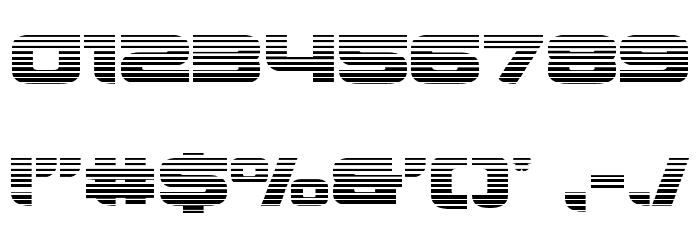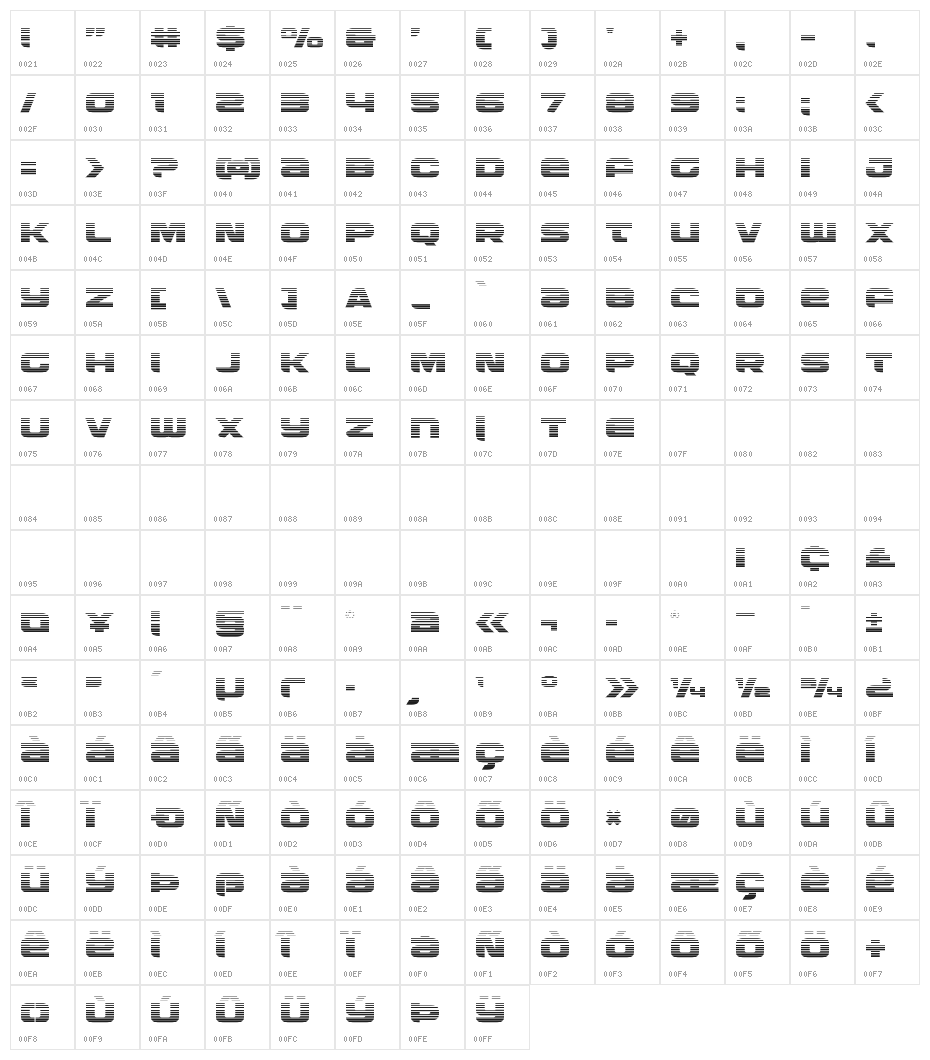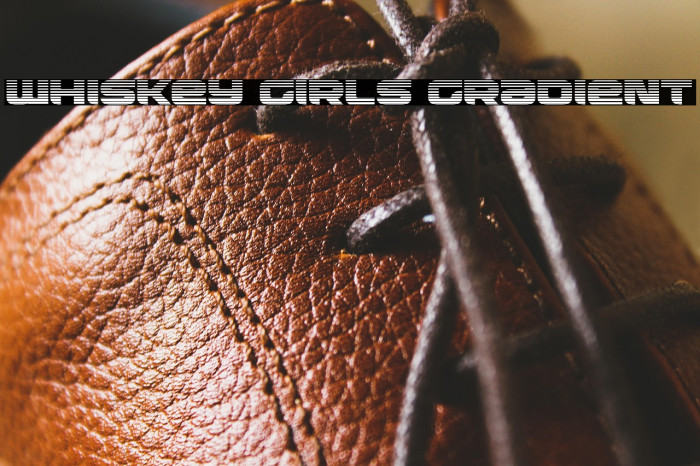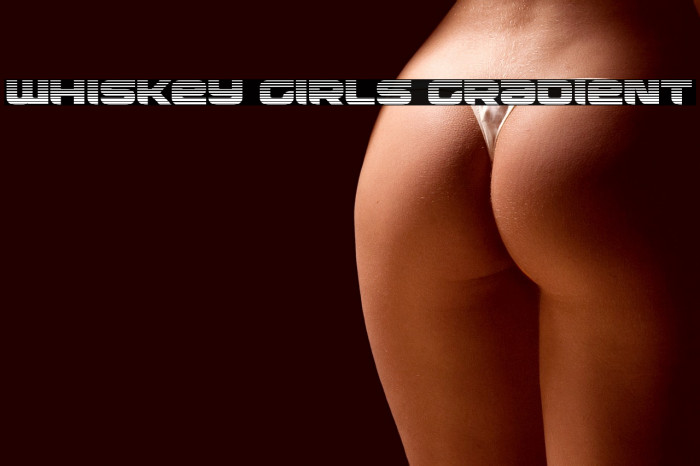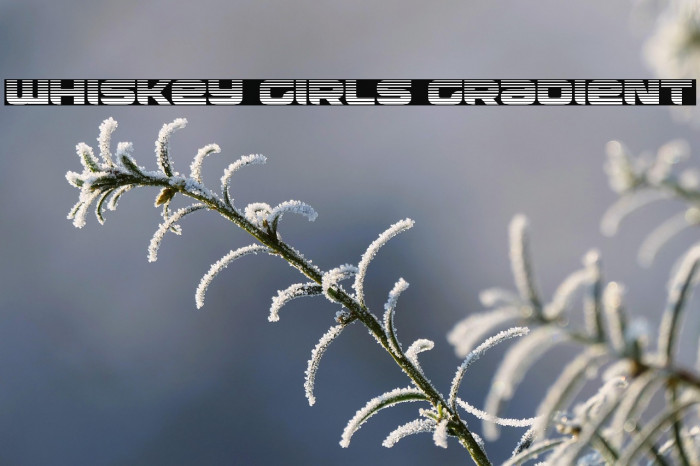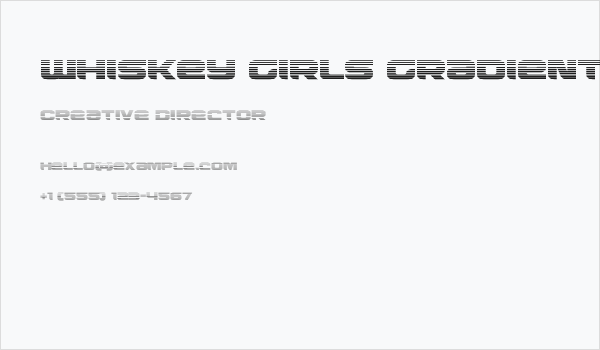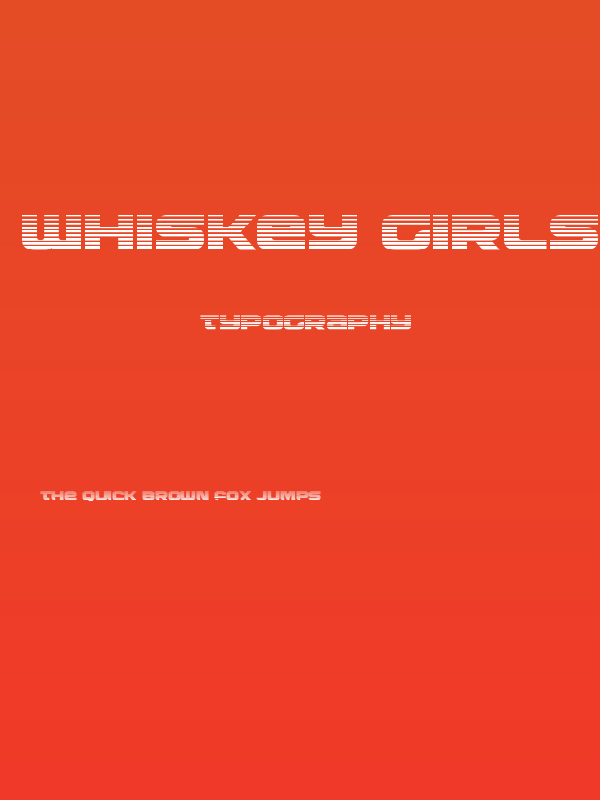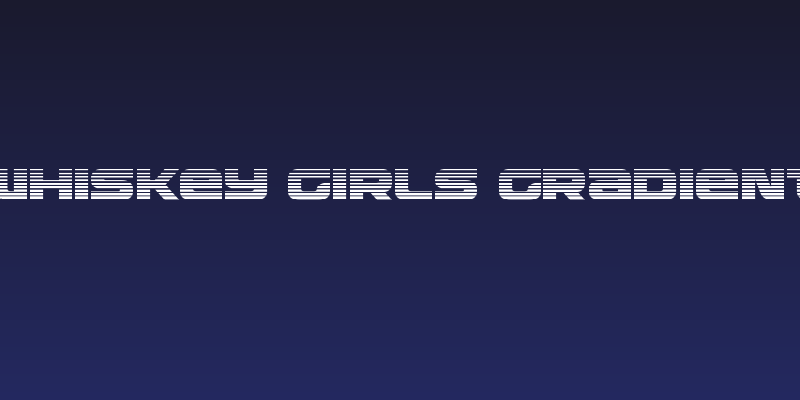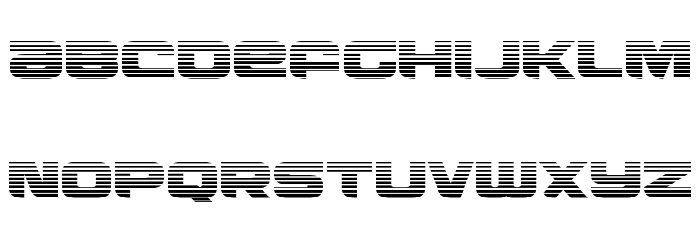
Whiskey Girls Gradient Font
Whiskey Girls Gradient Description
This font features a bold, modern design with a unique gradient effect created by horizontal lines running through each character. The uppercase and lowercase letters share a consistent style, emphasizing a futuristic and dynamic appearance. The numerals and special characters maintain this aesthetic, ensuring a cohesive look across all text elements. The font's structure is solid and impactful, making it ideal for attention-grabbing designs. The spacing between characters is tight, enhancing its compact and robust feel. This font is perfect for projects that require a strong visual impact, such as branding, advertising, and digital media.